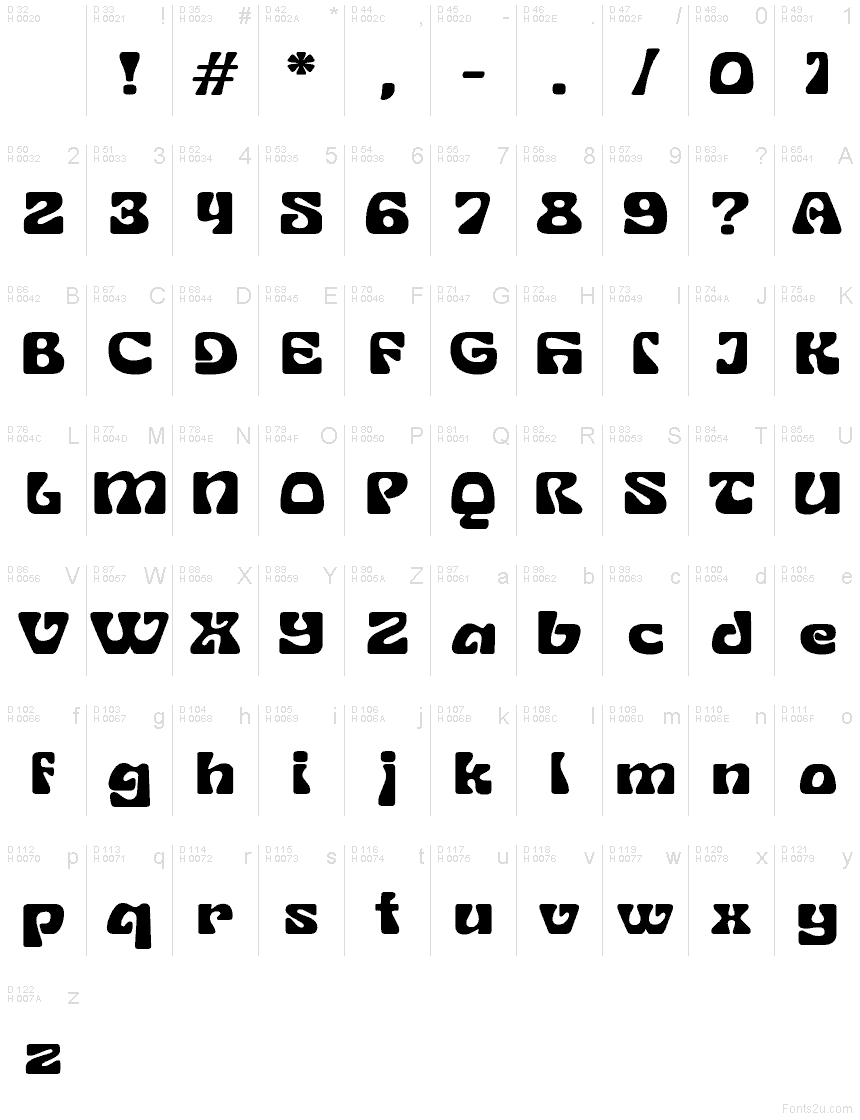
SG Display Wide DEMO
SG Display Wide font by Studio Gulden is a free groovy display typeface. Ultra-wide, pillowy letterforms flow like a lava lamp, with smooth, inky curves meeting crisp, squared edges for a funky, sculpted rhythm. It carries the swagger of retro poster lettering, yet stays readable thanks to generous counters and an even color, making the SG Display family feel both playful and dependable.
Using SG Display Wide, headlines jump off the page: festival posters, album covers, packaging, social promos, storefront signage, and merch all benefit from its bold, chewy texture. Set it big with modest letterspacing; pair this free font with a clean geometric sans to keep supporting text calm and legible.